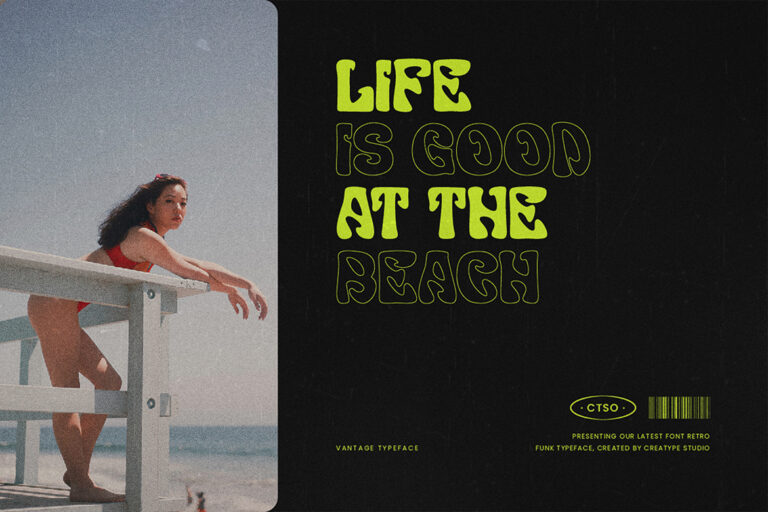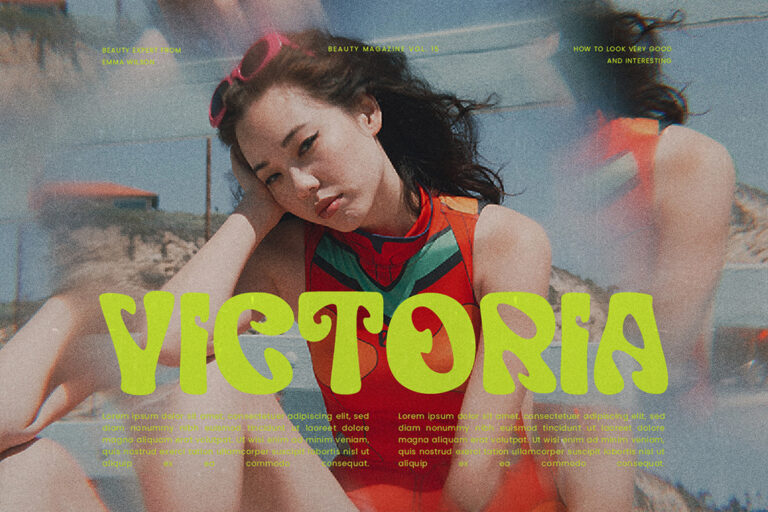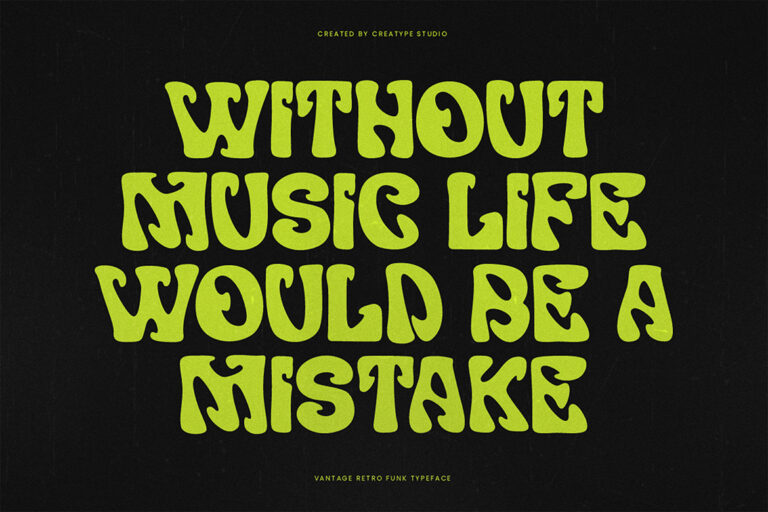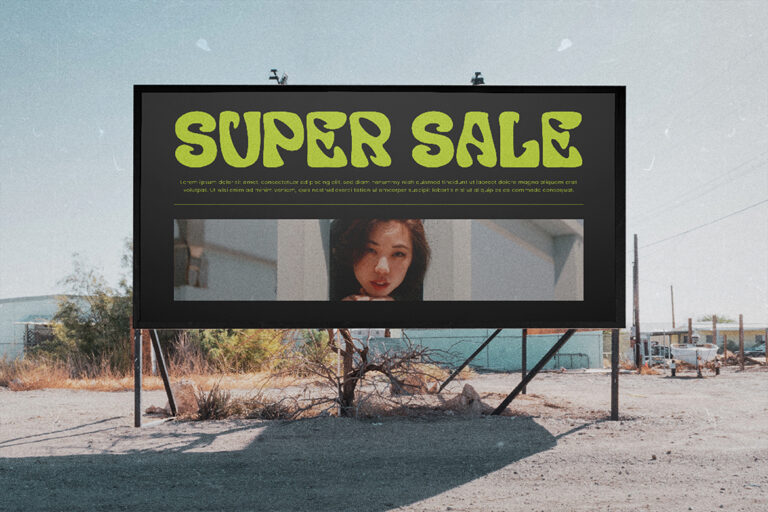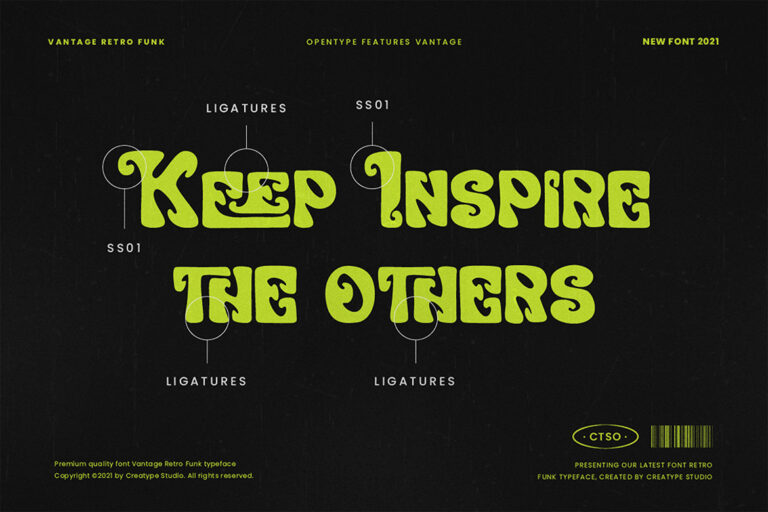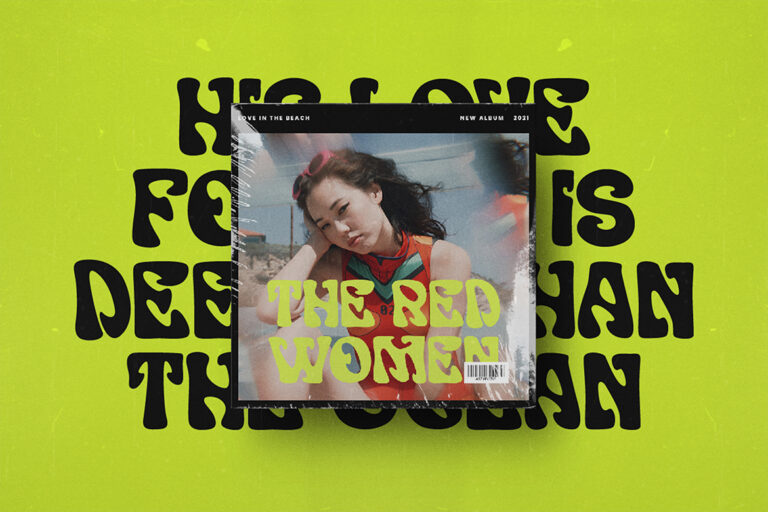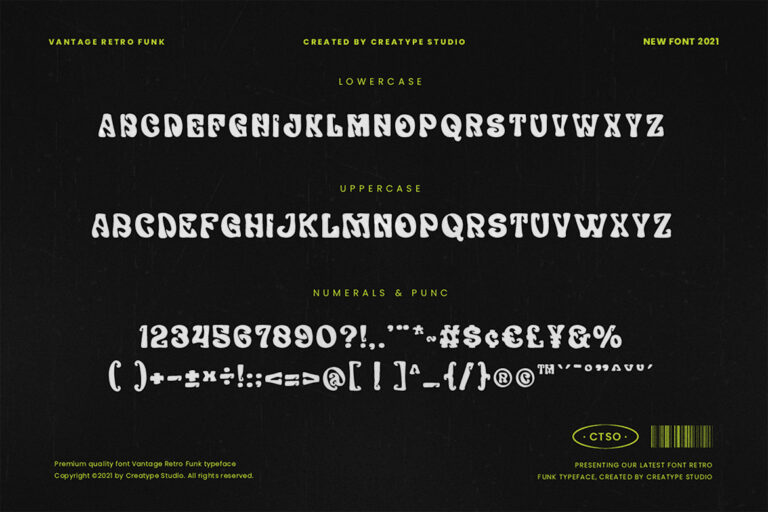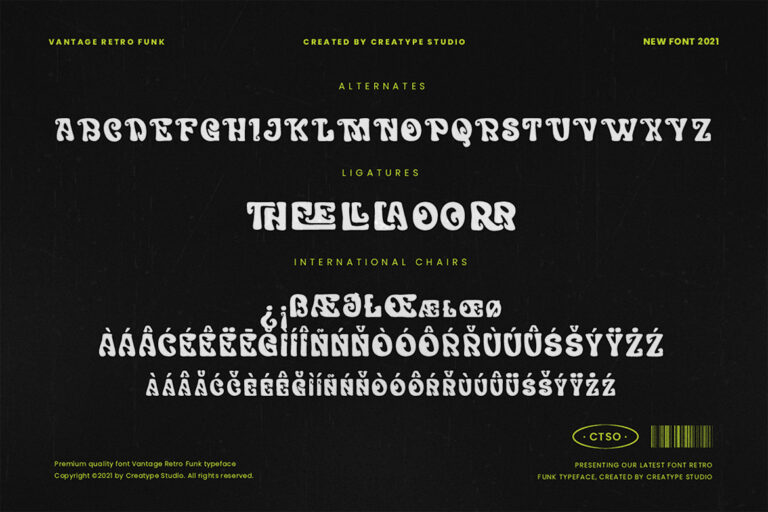
Vantage Retro Funk
Vantage is a retro funk typeface with a modern twist. This expertly hand-drawn retro font makes for a font that is simply perfect and a pleasure to work with. This font is inspired by the psychedelic movement from the mid-60s, making it a great font for your large projects.
Vantage is perfect for branding projects, logo, wedding designs, social media posts, advertisements, product packaging, product designs, label, photography, watermark, invitation, stationery and any projects that need handwriting taste.
- Ton of glyphs
- Ligature & Alternate
- Fonts include multilingual support for; Afrikaans, Albanian, Czech, Danish, Dutch, English, Estonian, Finnish, French, German, Hungarian, Italian, Latvian, Lithuanian, Norwegian, Polish, Portuguese, Slovak, Slovenian, Spanish, Swedish.